According to a survey taken by thousands, Halloween is the third-most-popular holiday in the United States. That means that it ranks higher than Valentine’s Day, New Year’s Eve, and even Easter. Something about this spooky holiday speaks to people, and our hunch says it’s the aesthetics: the costumes, decorations, and branding. Perhaps, for kids, it’s also about the candy. Whatever the reason, Halloween-lovers take their affection for the holiday seriously, going all out on their looks and decor.
In this article, we’ll help you keep up with the Halloween hype by showing you how to use drippy, gothic, and otherwise creepy fonts to take your invites and decorations to the next level.
What Makes a Halloween Font?
Any font could look scary in the right context – amid graphics of zombies and bats and so forth. That said, fonts that have an undeniable “Halloween-look” usually have a few things in common. They are often large, bold, and highly-stylized. Sometimes that stylization is a shaky effect, and other times it’s a gooey vibe. Old letterpress fonts tend to look cryptic as well. Halloween fonts intentionally stand out and call to mind everything from blood to bones to the lettering on tombstones.
- Butoxqueen
This shaky but straightforward font will give your guests goosebumps. Don’t forget to use a Halloween-themed hue for your text, such as the witchy purple color used on the invite below.
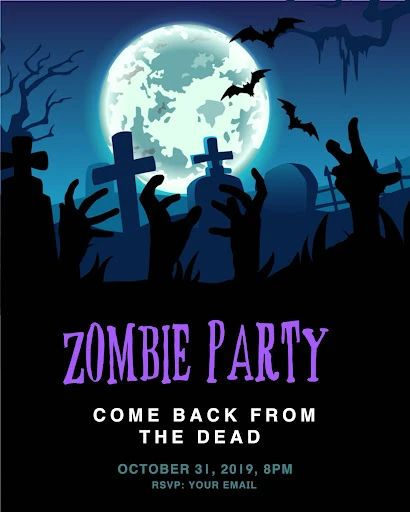
2. Virile
As with other Halloween fonts, Virile is spooky because it’s uneven and wavering. And it’s precisely what we imagine a ghost’s handwriting would look like, and viewers will think the same.
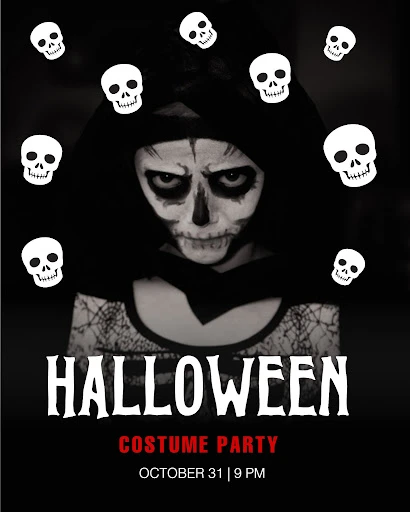
3. JerkChicken
Perhaps the name of this text doesn’t sound spooky, but this blotchy lettering is the perfect Halloween movie font. Drippy and wispy, “JerkChicken” reminds us of famous horror film posters.
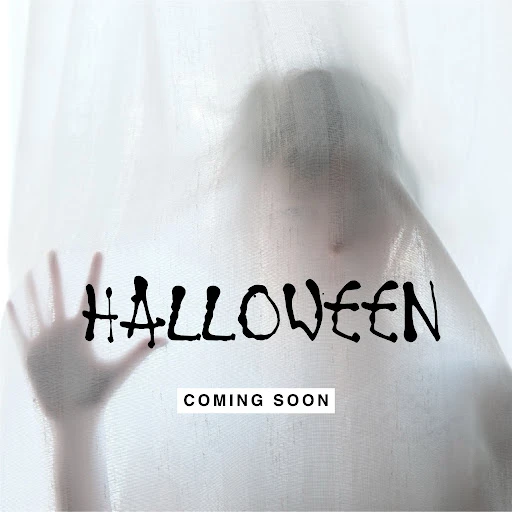
4. Xtreem Medium
This scary Halloween font is perfect for your spooky debut or movie night invite. Also, the name of the font is apt. “Xtreem” brings to mind the thrillers of the early aughts.
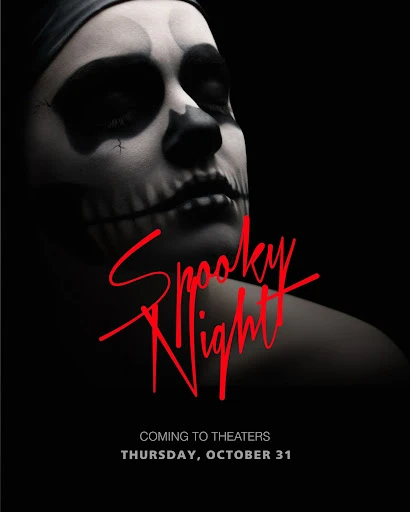
5. Fink Sans
Keep things light but stay on theme. Whether for a kid’s party or a canine costume contest, Fink Sans fits perfectly because it’s irregular and odd but also approachable. Its cartoonish letters are more fun than fright.
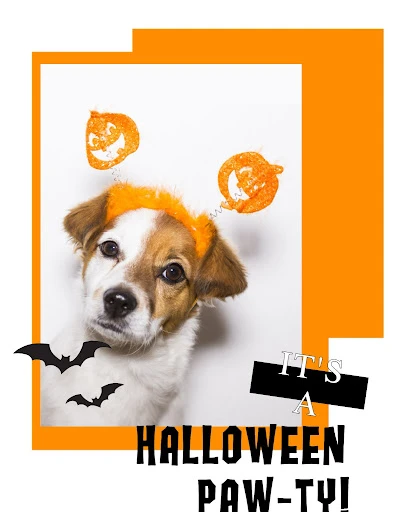
6. Carver ICG
This font, shown in swampy green in the graphic below, looks like it’s trembling right off the page. Plus, as the name suggests, it looks a bit like a carving, much like the kind you might find on the side of a jack-o’-lantern.
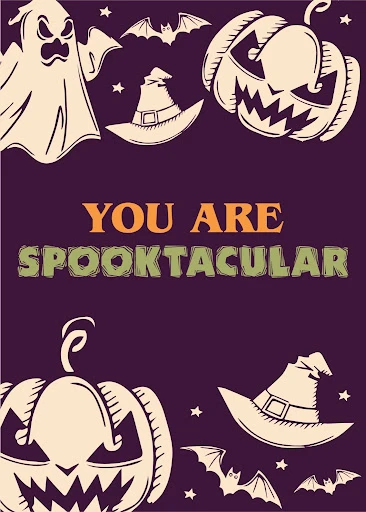
7. Lombardic Capitals Std
There’s something about an intricate, old-timey serif font that screams Halloween. Perhaps it’s a nod to dusty old books or the lettering on tombstones. Whatever the case, this ornate font is perfect for accompanying images of ghouls and ghosts.
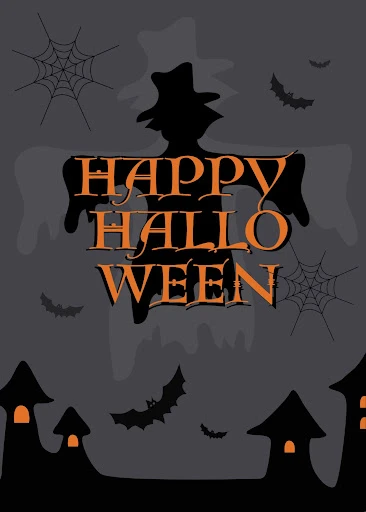
8. Henny Penny
This font strikes a balance between an ancient-looking bookish font and a newer, more hip Halloween print. It works well on invites when you want the vibe to be spooky but not terrifying. Try pairing it with stickers of bats, like in the image below, because the flourishes on these letters are reminiscent of wings in flight.
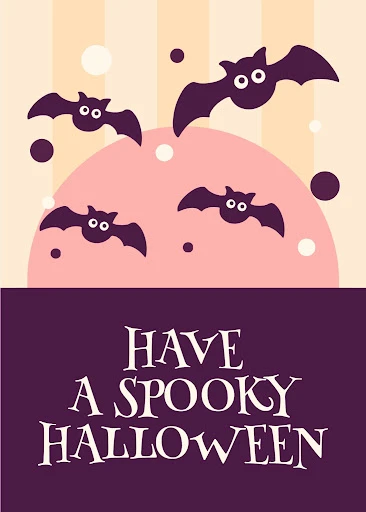
9. Frijole
Another font that’s shaking in its proverbial boots, Frijole gives off a chill. These bold, wide letters stand out well, even in big spaces, so keep this font in mind when designing decor or posters.
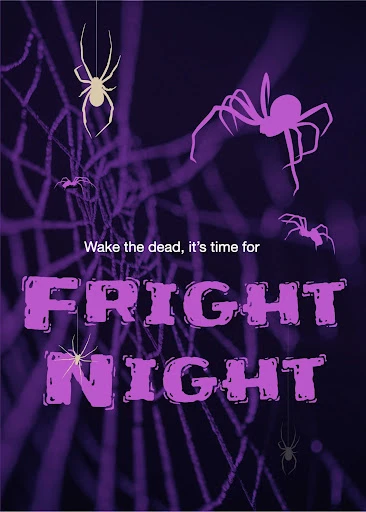
10. IM Fell English SC
This academic-looking font is perfect for heading up a ghost story or a themed menu at your bar. It’s classy but creepy and gets people in the mood to gather ‘round and listen to a harrowing tale.
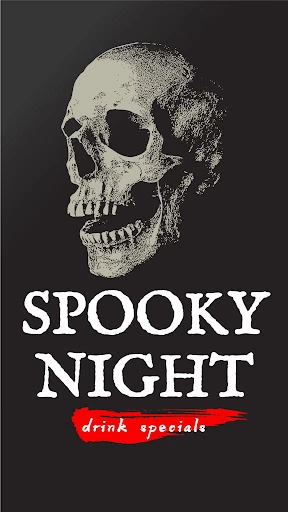
11. Creepy
The name says it all. This font is ideal for scary settings, with its oozy letters and high-drama look. Use “Creepy” on party posters and invites, and no one will have to think twice about the theme of the event.
12. Spooky STD
Another font simply made for the holiday, “Spooky” consists of distinctive letters that look like they’re receding into the fog. These unique shapes are sure to get anyone’s attention, so use this font on announcements. Remember that a little goes a long way.
13. Woolfsblood Pro Regular
Alas, here’s a text that combines all of the key aspects of a quintessential Halloween font: shakiness, drippiness, and a frightening name. Feature this lettering in a contrasting color on a dark background for a bold look.